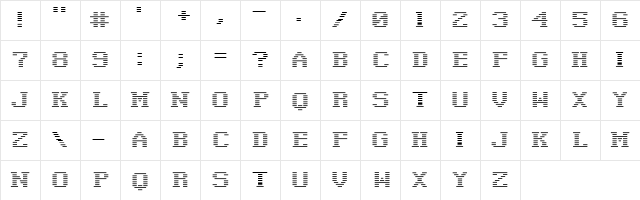
Negative Tuning Regular
Complete Negative Tuning Regular glyph index. Displaying only characters natively supported by Negative Tuning Regular font.
Design Context for Negative Tuning
Negative Tuning is a composed and adaptable typeface that performs quietly and consistently across a wide range of design contexts.